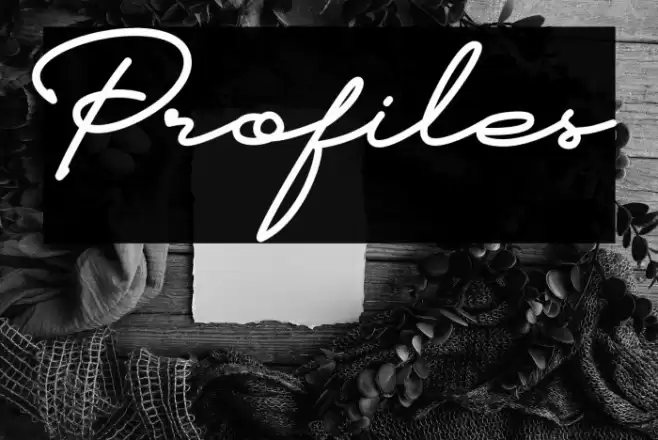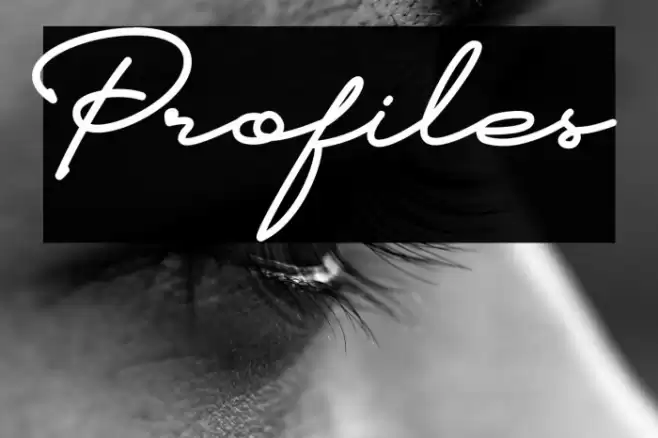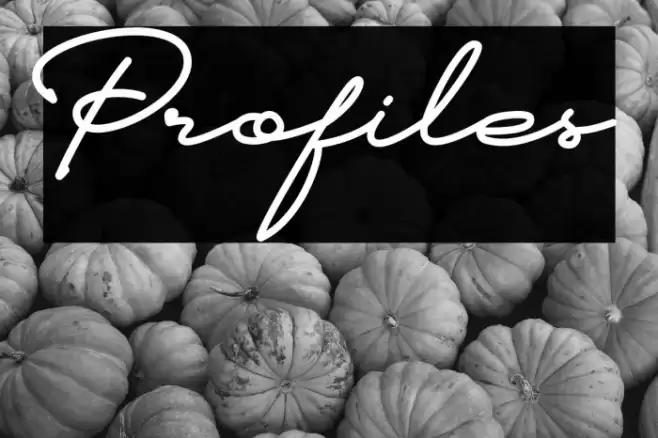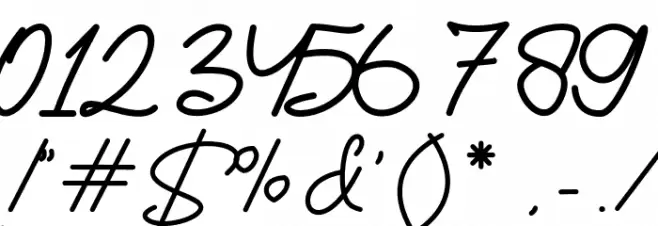
Profiles Font
Profiles Description
This font exudes a dynamic and elegant script style, characterized by its fluid and continuous strokes that mimic the natural flow of handwriting. The uppercase letters are bold and slightly slanted, adding a sense of movement and grace. The lowercase letters maintain a consistent rhythm, with smooth connections between each character, enhancing readability while preserving a stylish flair. Numbers and special characters are crafted with the same attention to detail, ensuring a cohesive look across all text elements. This font is ideal for projects that require a personal touch, such as invitations, greeting cards, and branding materials.
A dynamic and elegant script font with fluid, continuous strokes from Regular fonts.
- Font: Profiles
- Proposed Projects: Ideal for invitations, greeting cards, branding, and personal projects.
- Overall Style: Elegant, Handwritten
- Use Case: Headlines, Logos, Invitations